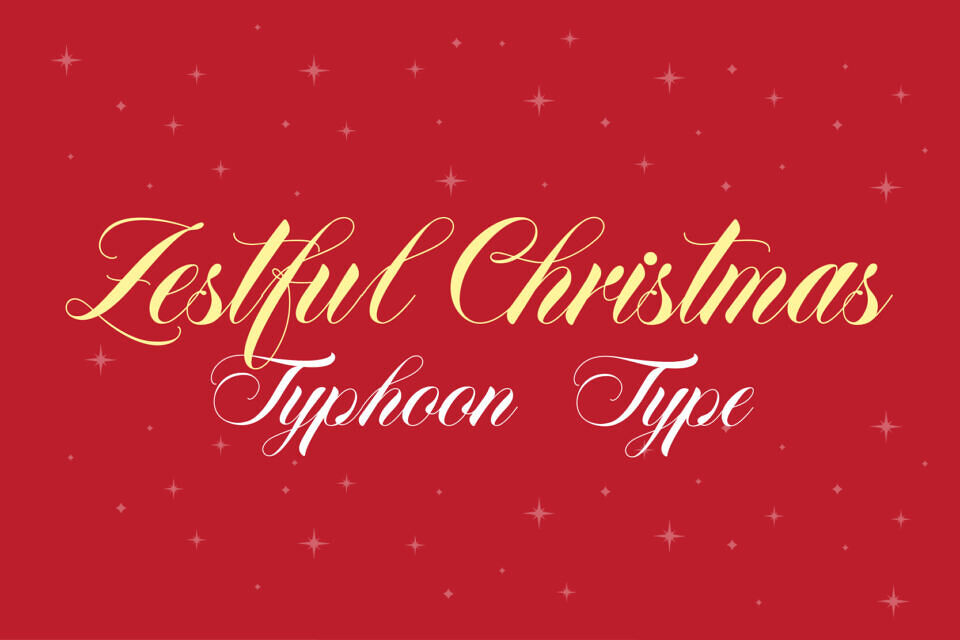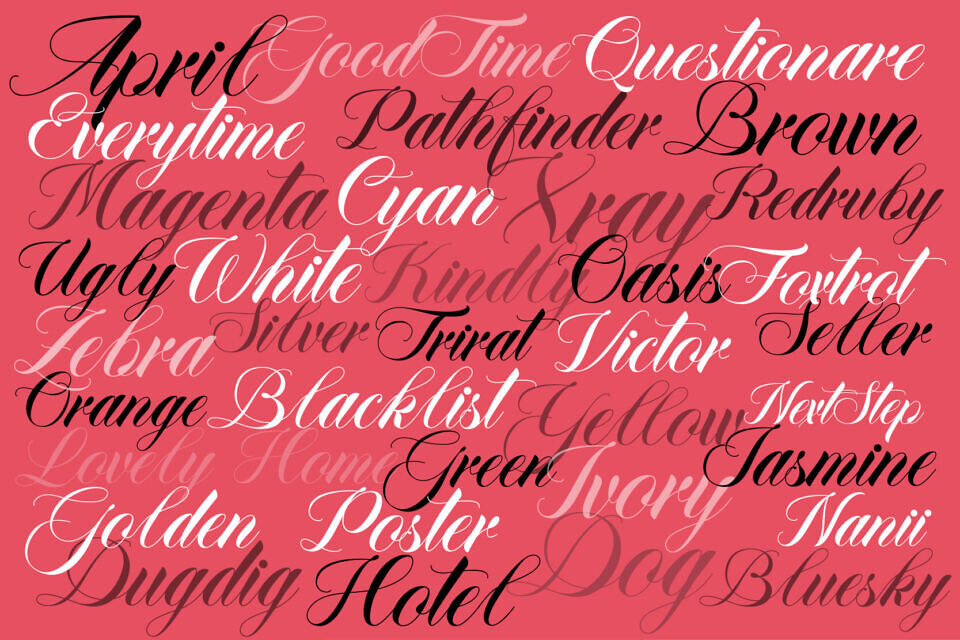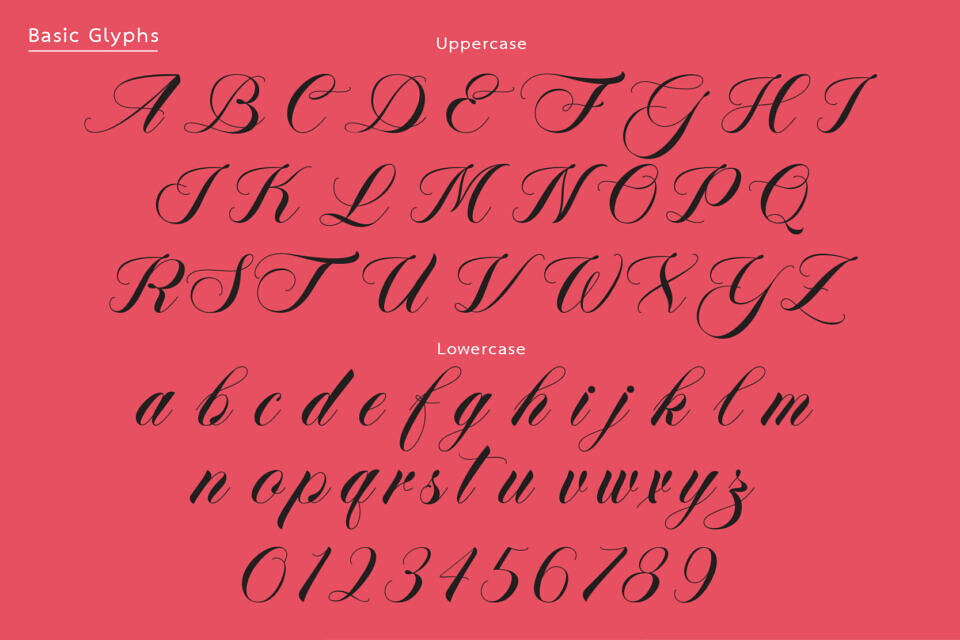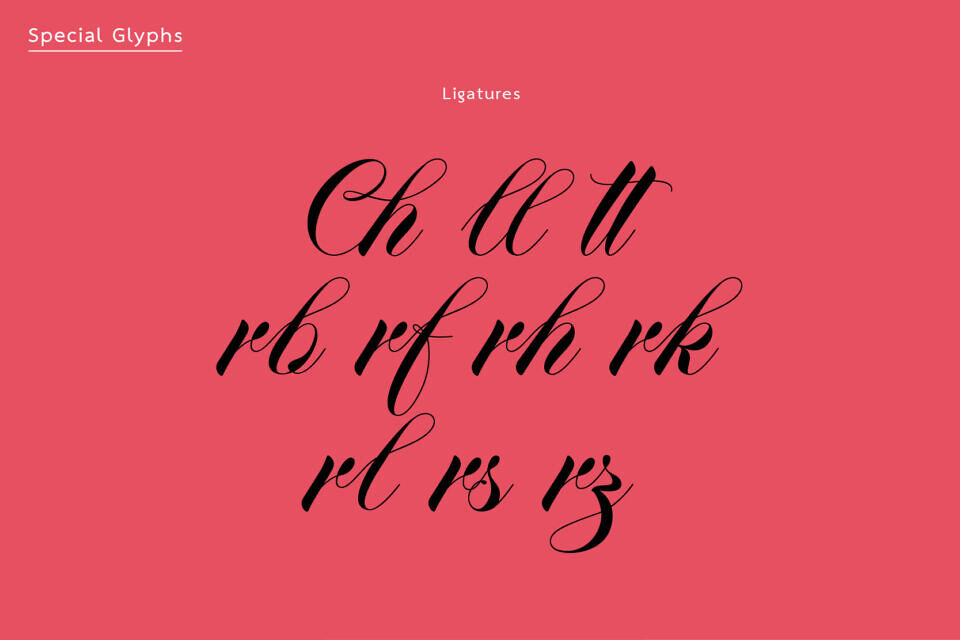
Zestful Christmas was inspired by the elegant art of handwritten calligraphy crafted with a dip pen. This script font captures the fluidity and charm of authentic handwriting — every curve and stroke flows naturally, radiating warmth and care in every letter. The design blends the grace of classic penmanship with the joyful energy of the Christmas season, creating a lively yet sophisticated rhythm throughout the text.
Each letter is thoughtfully connected with smooth, flowing tails and delicate curves, evoking a sense of celebration and elegance. Perfect for holiday greeting cards, festive branding, gift tags, and winter-themed designs, Zestful Christmas brings a touch of heartfelt charm and seasonal cheer to every project it graces.